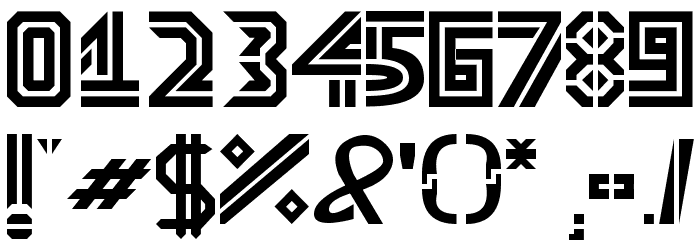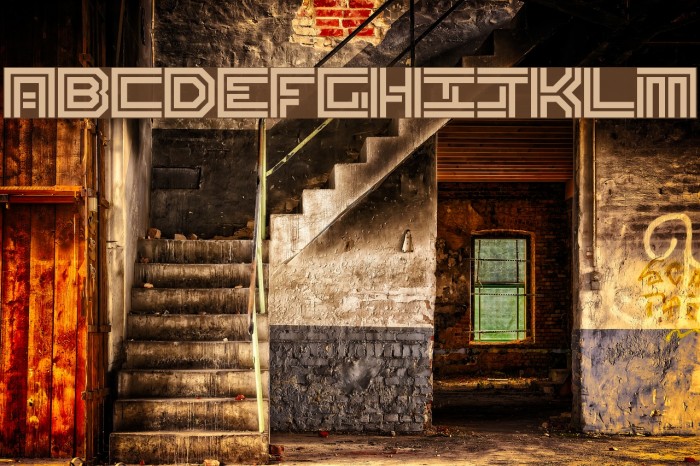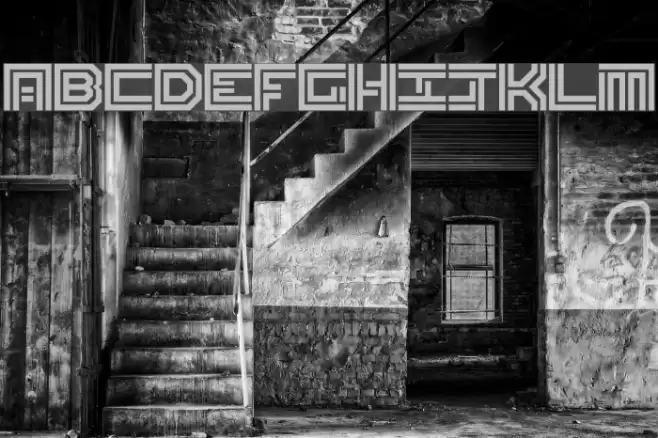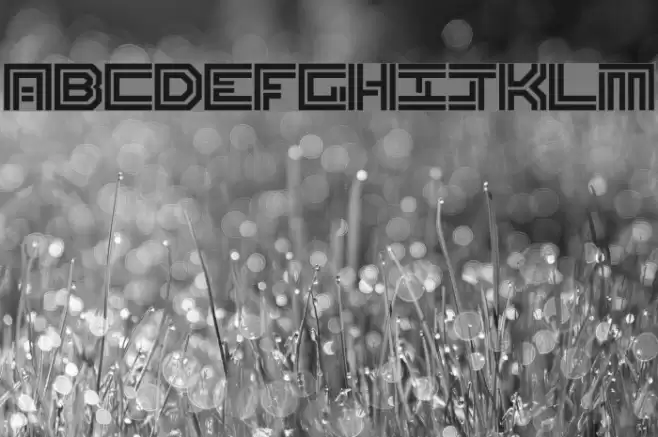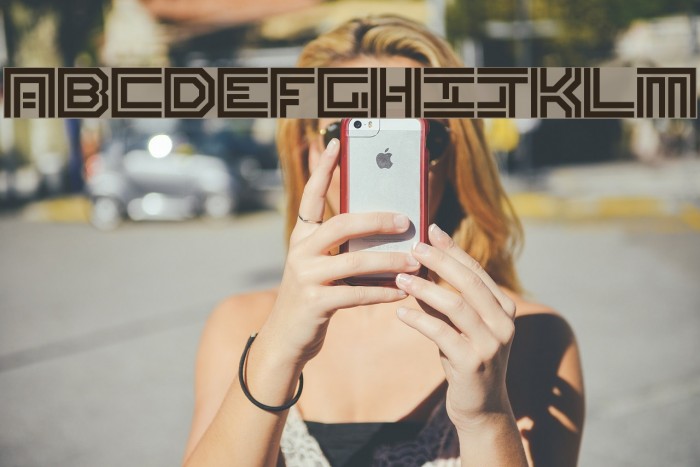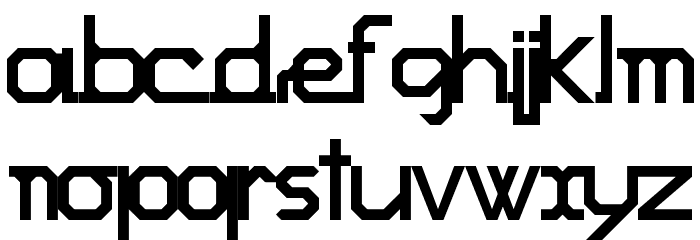
Trackmania Font
Trackmania Description
This font features a bold, geometric design with a futuristic and industrial aesthetic. The characters are constructed with sharp angles and straight lines, giving them a mechanical and structured appearance. The uppercase letters are particularly striking, with unique cutouts and overlapping elements that create a sense of movement and complexity. The lowercase letters maintain a similar style, though slightly more streamlined. Numbers and special characters are equally bold and distinctive, with some incorporating diagonal lines and unique shapes. This font is highly decorative and makes a strong visual impact.
| Overall Style | Futuristic |
| Proposed Projects | Ideal for projects that require a modern, tech-inspired look, such as video game titles, tech branding, or sci-fi themed posters. |